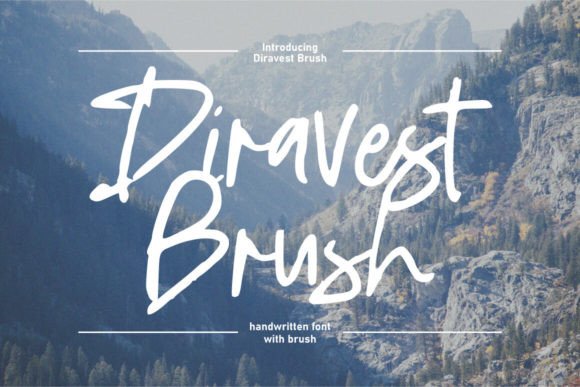
Introducing Diravest Brush Font, the ultimate artistic creation that will ignite your designs with its captivating handwritten charm. This remarkable script font exudes elegance and sophistication, making it the perfect choice for crafting logos, branding materials, and eye-catching posters that leave a lasting impression.
With over 200 glyphs at your disposal, Diravest Brush offers a treasure trove of possibilities for creative expression. Unleash your imagination and explore the diverse range of swashes, stylistic sets, alternates, and ligatures to add depth and intrigue to your designs. The OpenType features are fully compatible with design software such as Adobe Illustrator, InDesign, Photoshop, Corel Draw, and Microsoft Word, ensuring seamless integration into your workflow.
Designed with meticulous attention to detail, Diravest Brush features a dancing baseline that adds a touch of playfulness to your creations. Its decorative characters and handmade signature style evoke a sense of authenticity and warmth, making it ideal for invitations, greeting cards, quotes, and branding materials that aim to connect with your audience on a personal level.